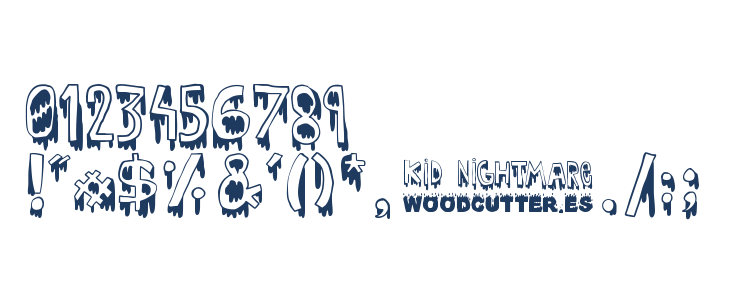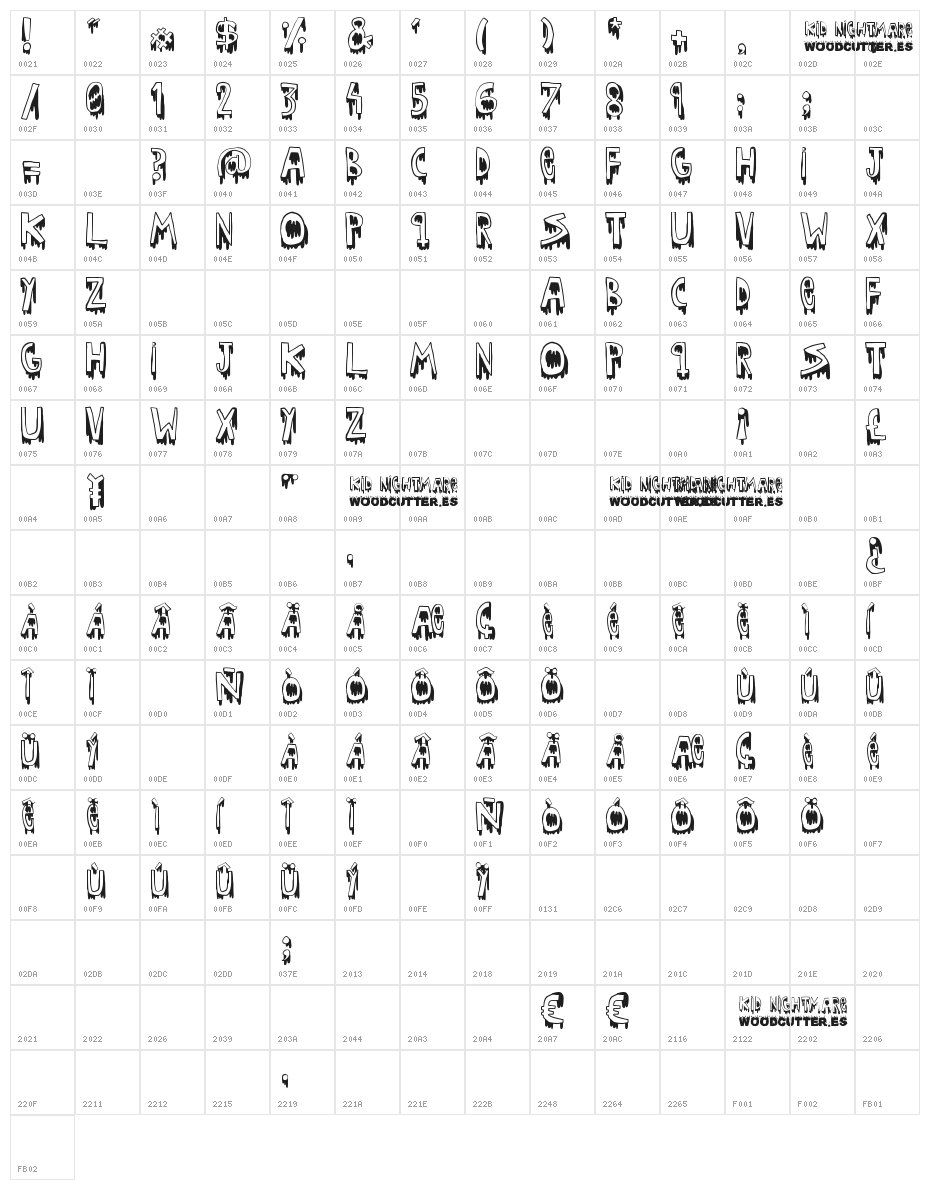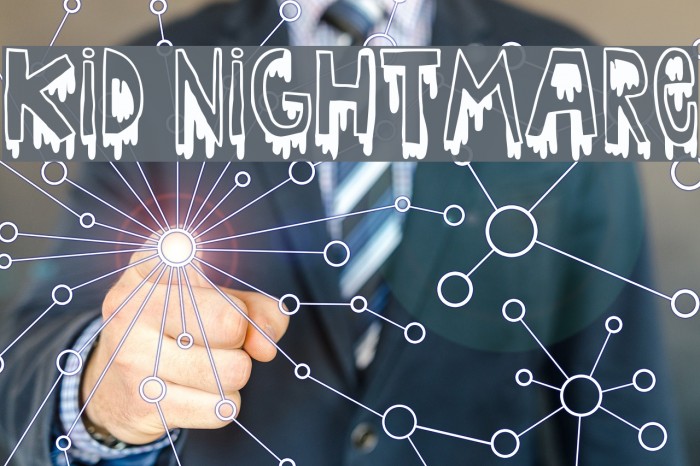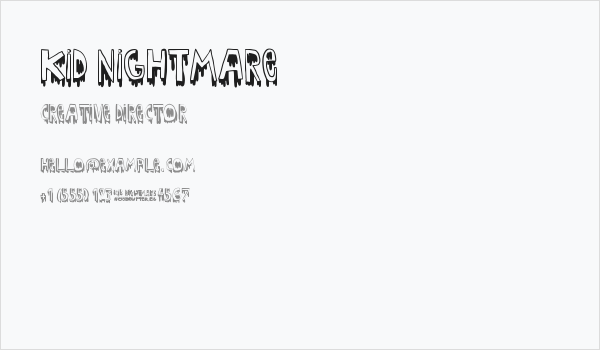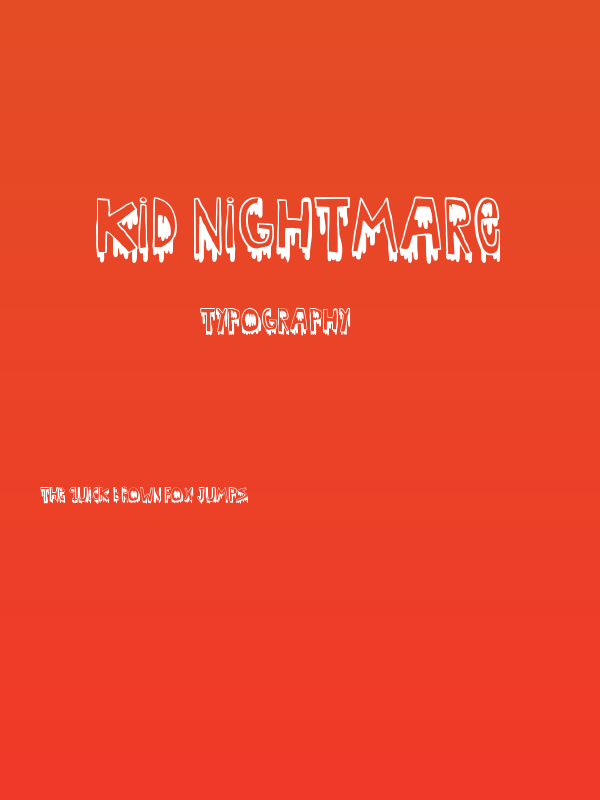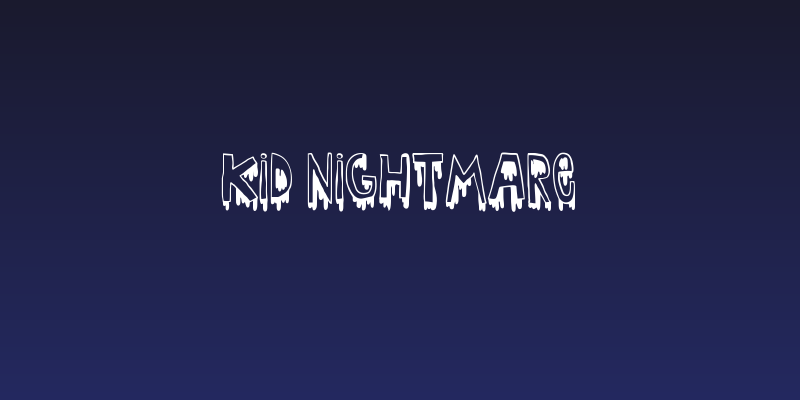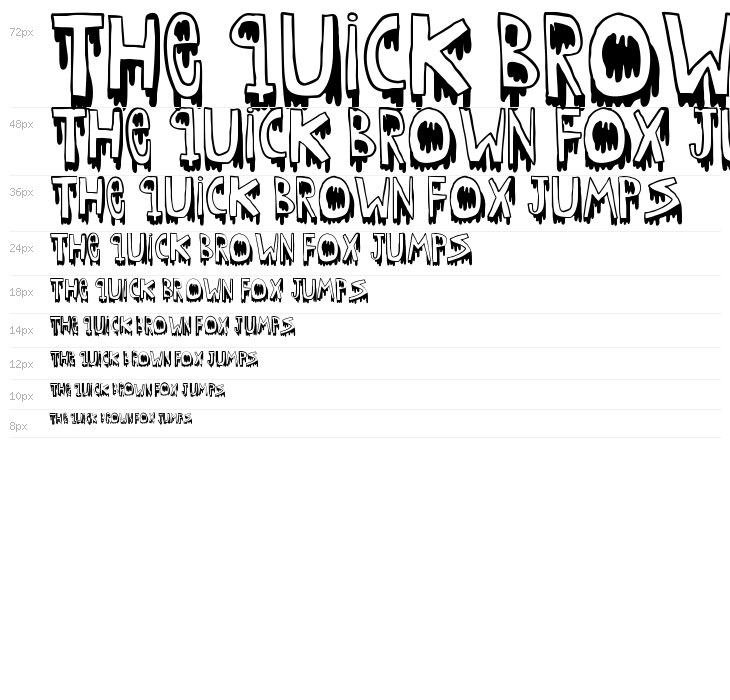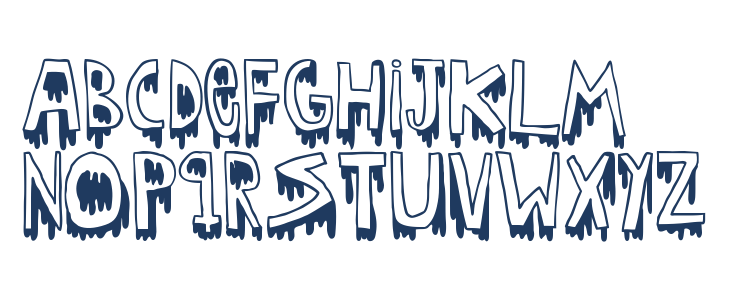
Kid nightmare Font
Kid nightmare Description
This font features a playful and spooky design, characterized by its dripping effect that mimics melting or gooey textures. The letters are bold and have a cartoonish style, making them stand out with a unique and eye-catching appearance. The uppercase and lowercase letters maintain a consistent theme, with each character having a distinct, irregular outline that adds to the eerie aesthetic. The numbers and special characters follow the same design principles, ensuring a cohesive look across all elements. This font is perfect for Halloween-themed projects or any design that requires a fun yet slightly unsettling vibe.
Proposed ProjectsIdeal for Halloween invitations, themed party decorations, horror movie posters, and children's spooky storybooks.